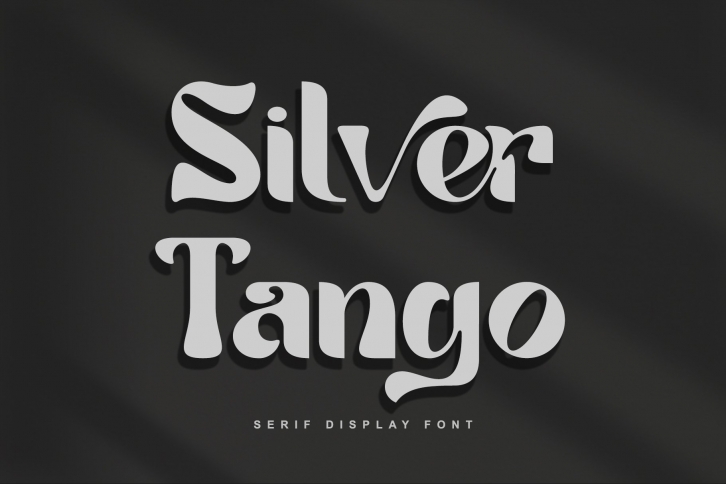
Tango Silver is a great font that was designed by Thomas Aradea. Imagine the amount of combinations you can create using this font! The archive is 13.41 MB and it was released on October 3, 2022. Tango Silver looks beautiful on wedding invitations, greeting cards, logos, posters, labels, t-shirt designs, logos, business cards and is perfect for use in ink or watercolor works, fashion, magazines, packaging and food menus, children's books and more!